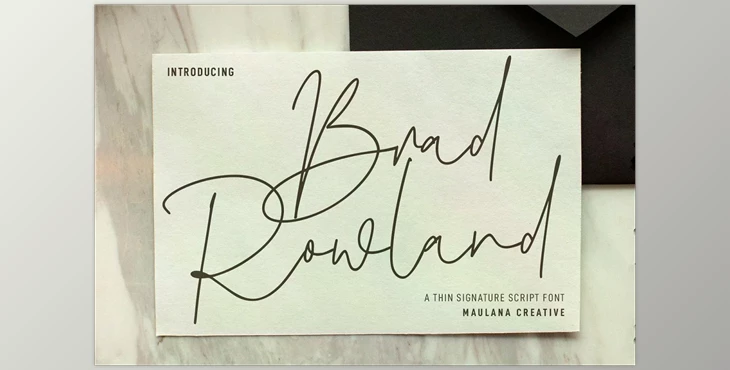
Brad Rowland Signature Font:
Brad Rowland is a fancy handwritten script font. It has a medium contrast stroke. enjoyable character, with little alternates and ligatures. For you to do some imaginative work. Brad Rowland font supports multilingual more than 100languages. This font is great for logo design, social media and Movie Titles and Books Titles, and a text that is short even lengthy text and is an excellent secondary text font with a serif or sans. Create stunning designs with the Brad Rowland font.